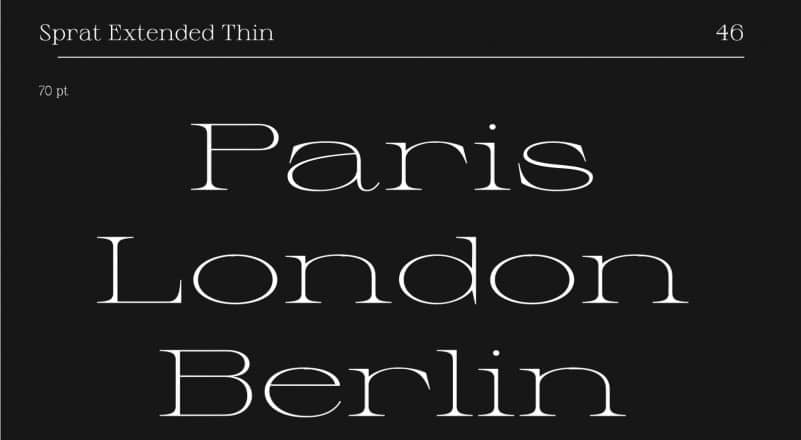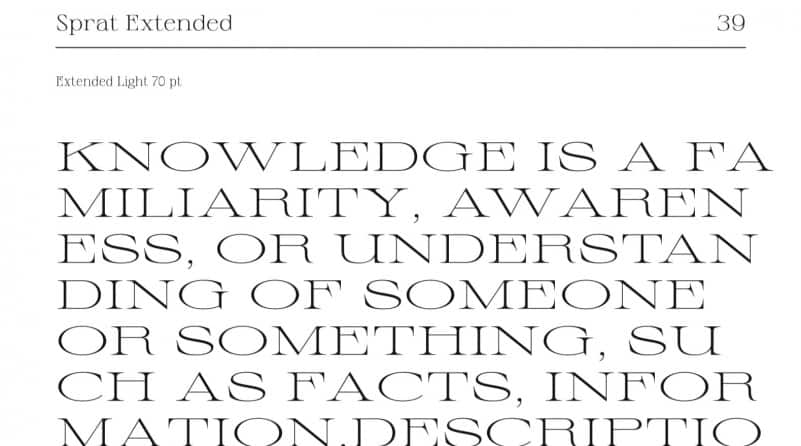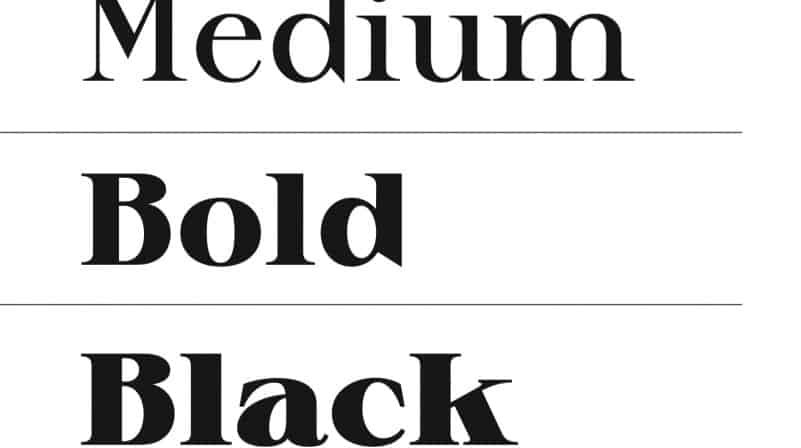
Sprat Font Family
Sprat Font Family is a modern serif for making strong statements and powerful logos. With a conventional serif without any frills in it, but still functional. with four weights, including Regular, Medium, Semibold and Bold. It’s makes it easy for you for your every visual need. The idea is to design a very complete display typeface family (from condensed thin to extended black) and whose use could vary according to style and weight.
The different versions can work together as well as individually. Its use is mainly suitable for titling, poster, logo but depending on the style the Sprat also works in a mid-sized body text. To date, Sprat is available in 3 styles (condensed, regular and extended) and 6 weights (thin, light, regular, medium, bold and black) with 230 glyphs, it covers the extended Latin language.